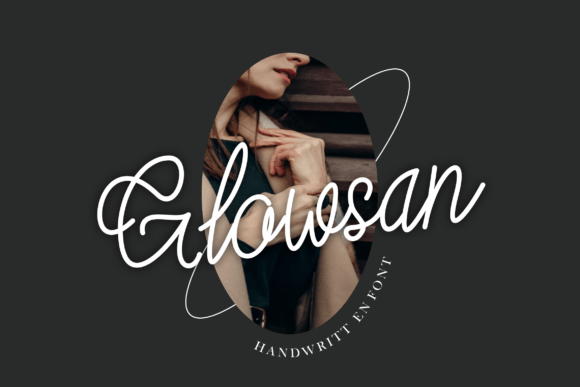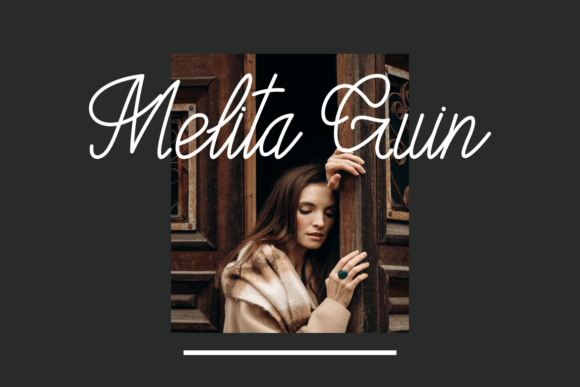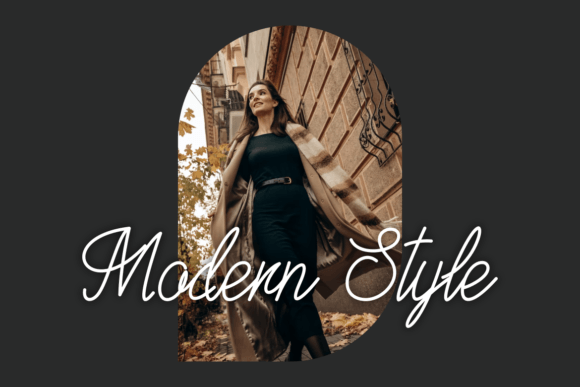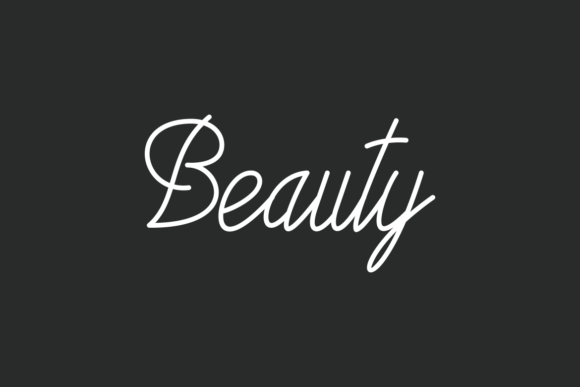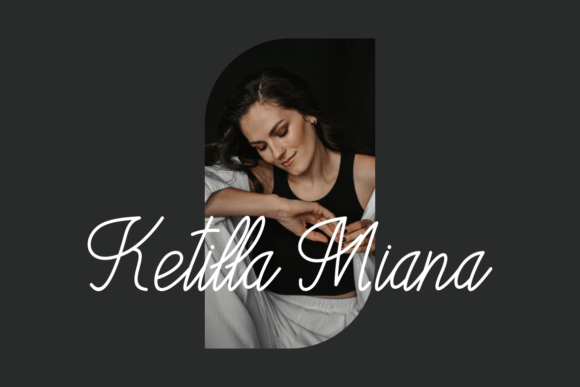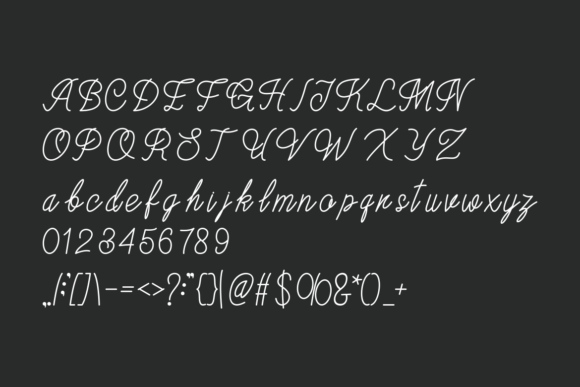
About Glowsan Font
Glowsanfont is a beautiful, classy, and modern script and handwritten typeface designed to elevate your creative projects. When you download Glowsanfont, you receive a versatile font that balances elegance with contemporary style. It’s perfect for those seeking a polished and refined look in their designs.
Elegant Script with a Modern Touch
Glowsan combines the charm of a handwritten font with a sleek, modern script style. Its smooth curves and flowing strokes create a sophisticated feel that adds class to any project. This font makes your designs stand out by giving them a unique, personal, and timeless appeal.
Versatility for Various Projects
Whether you’re working on branding, logos, wedding invitations, stationery, or typography quotes, Glowsanfont fits perfectly. It also works well on magazine and book covers, website headers, clothing designs, and packaging. This wide range of uses makes Glowsan an essential addition to your font library.
Boost Your Creative Work